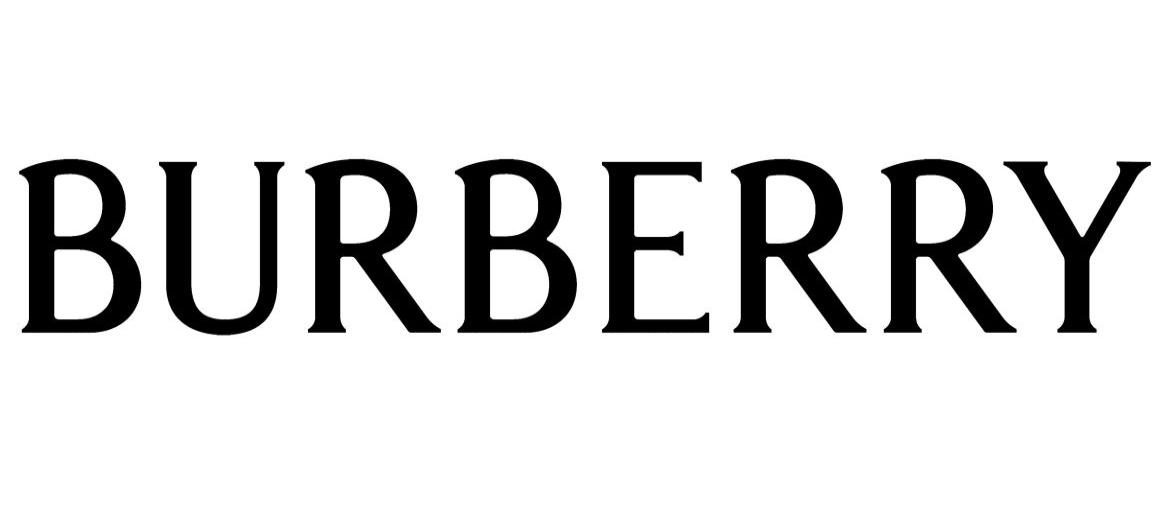
Burberry Font
What Font is Burberry?
The Burberry Font used in the brand’s current word-mark is a custom-designed typeface created for the luxury house’s refreshed identity. For those looking to replicate this look, a premium font that closely matches its clean, elegant serif style is Giane Semi Bold. Additionally, a free alternative font is available that captures a similar refined and modern feel — ideal for creative projects inspired by Burberry’s updated logo.
About Burberry
Burberry is a British luxury fashion house founded in 1856 by Thomas Burberry. Known for its trench coats, iconic check pattern and heritage craftsmanship, the brand has evolved its visual identity over the years to reflect both tradition and innovation. The current word-mark’s understated serif design communicates timeless luxury, confidence and British heritage — perfectly aligned with Burberry’s positioning in the high-end fashion world.